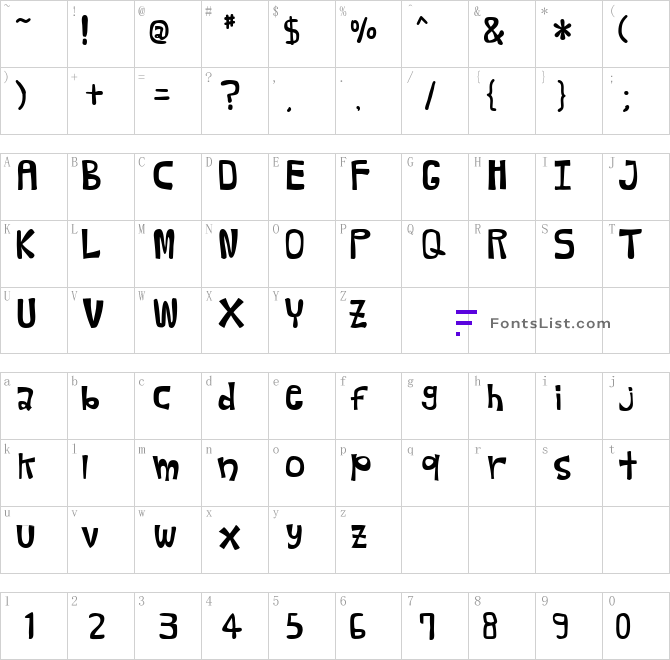
- Font Name:Bearz
Bearz.ttf is a very beautiful artistic font, Bearz.ttf is widely used in the design and printing of various books and pictures,Bearz.ttf has a strong visual impact,Bearz.ttf is a commonly used font in newspapers, magazines and books, and is used in posters, e-commerce Poster design, store design, logo design, font design and other fields.Bearz.